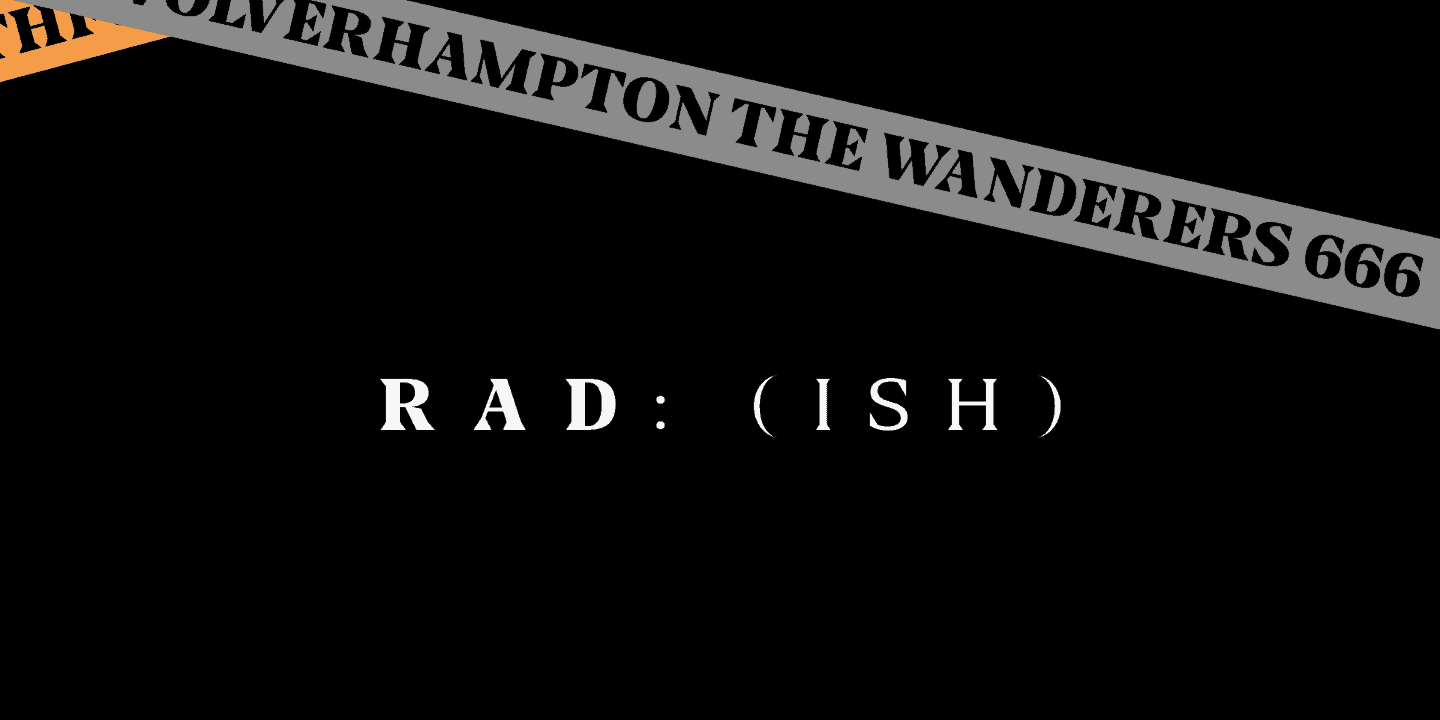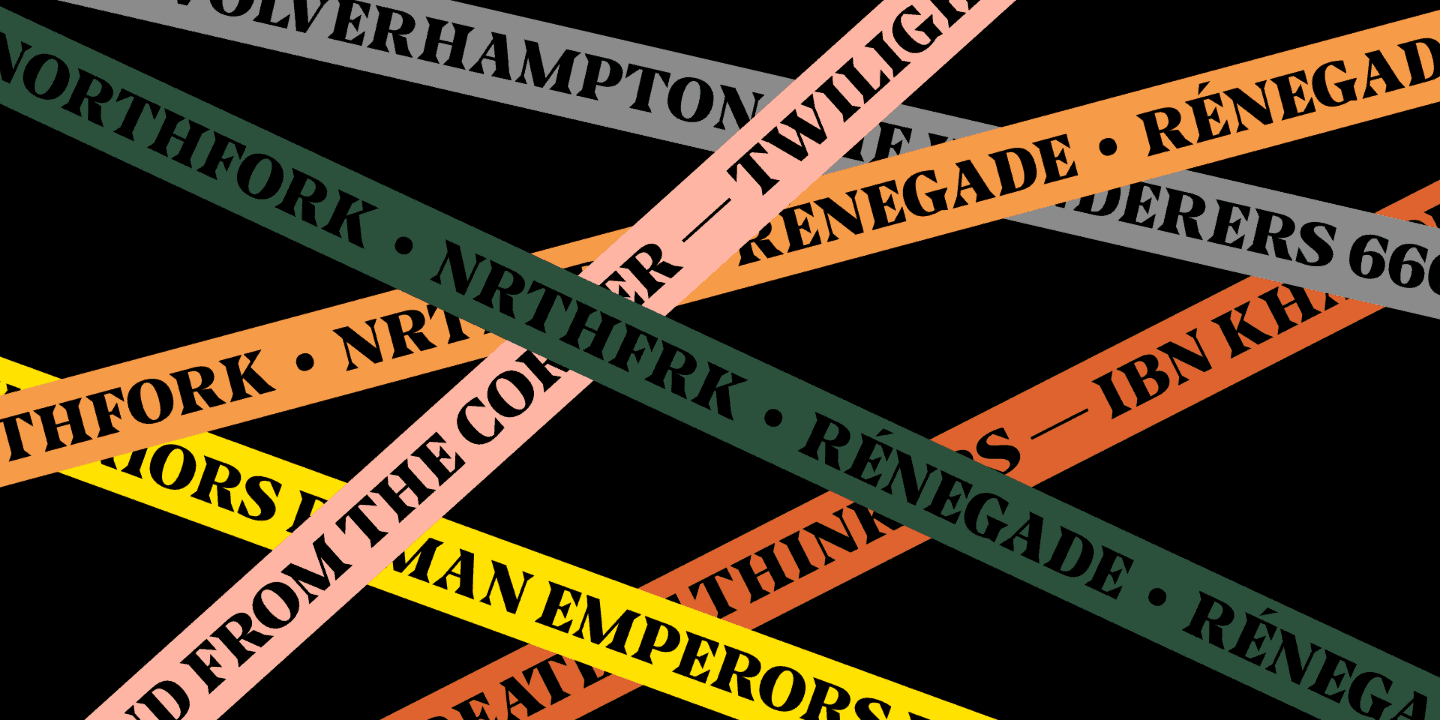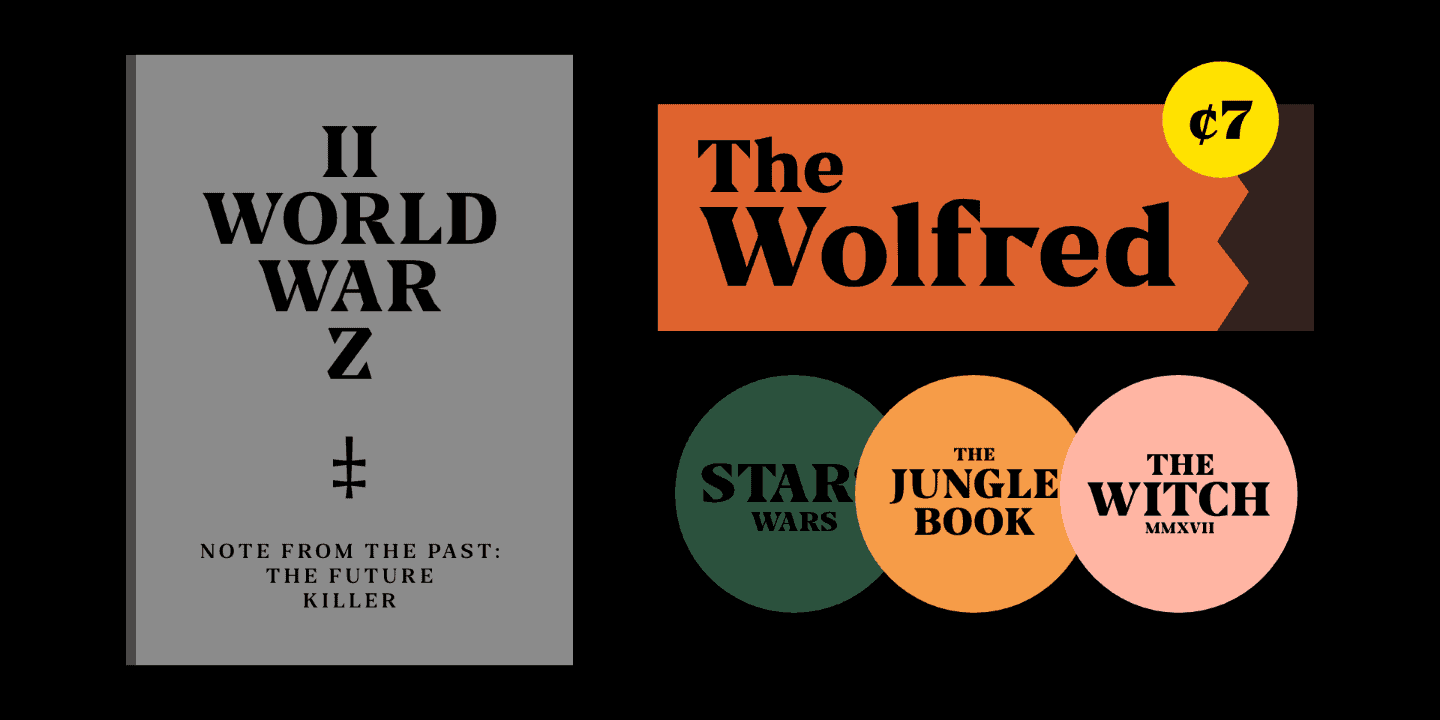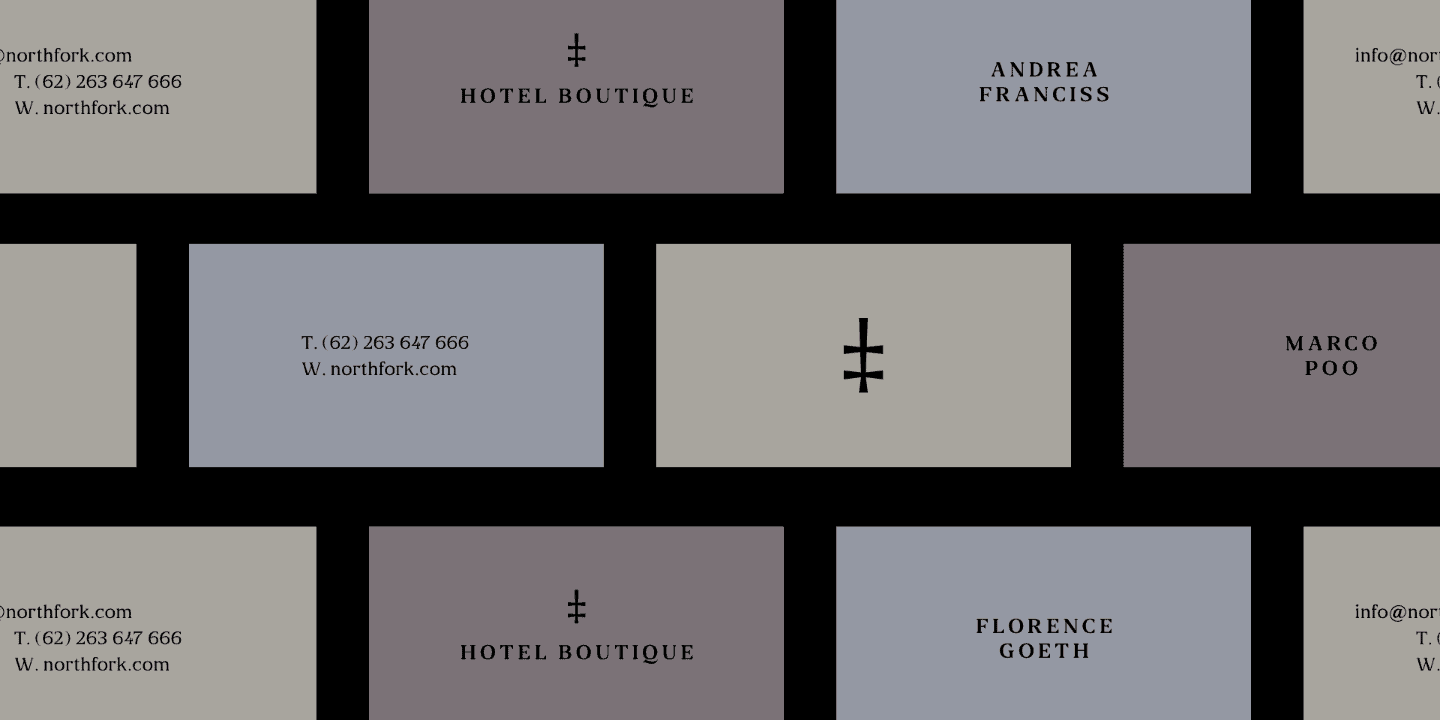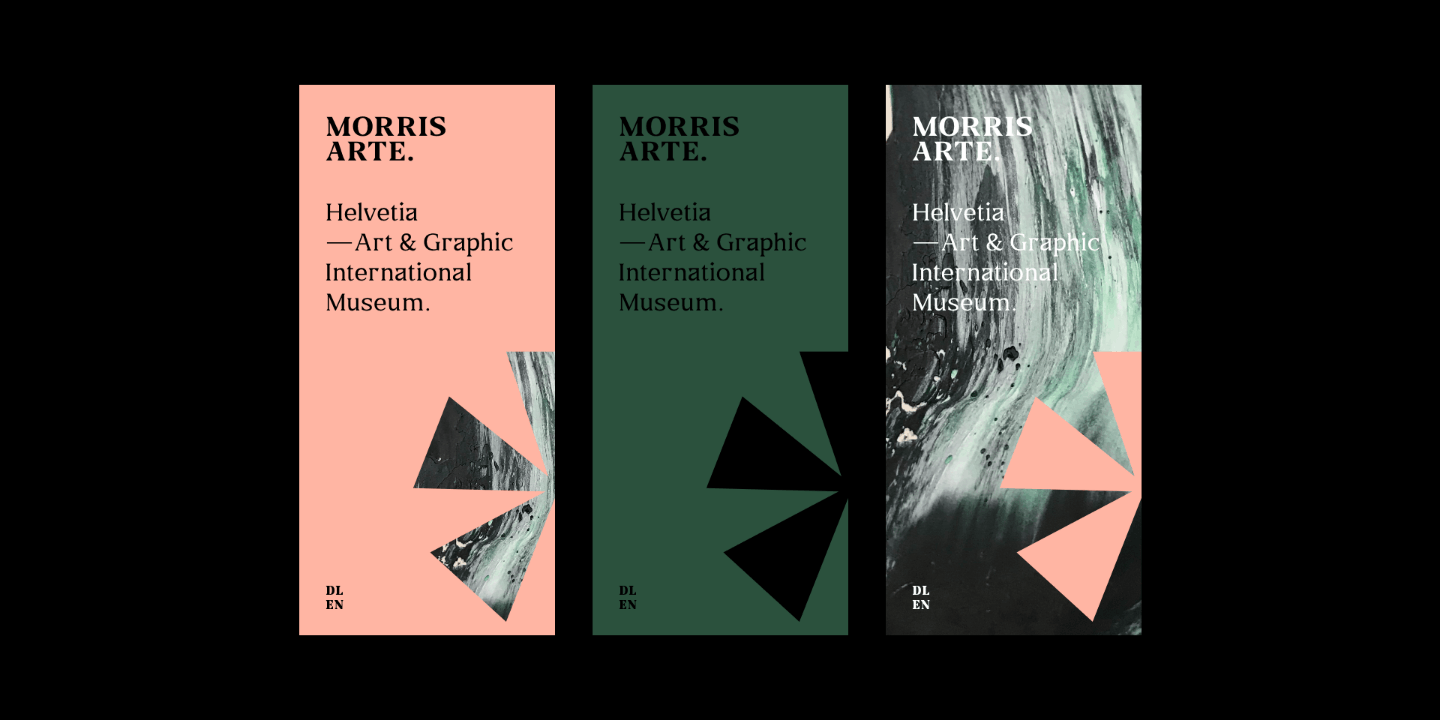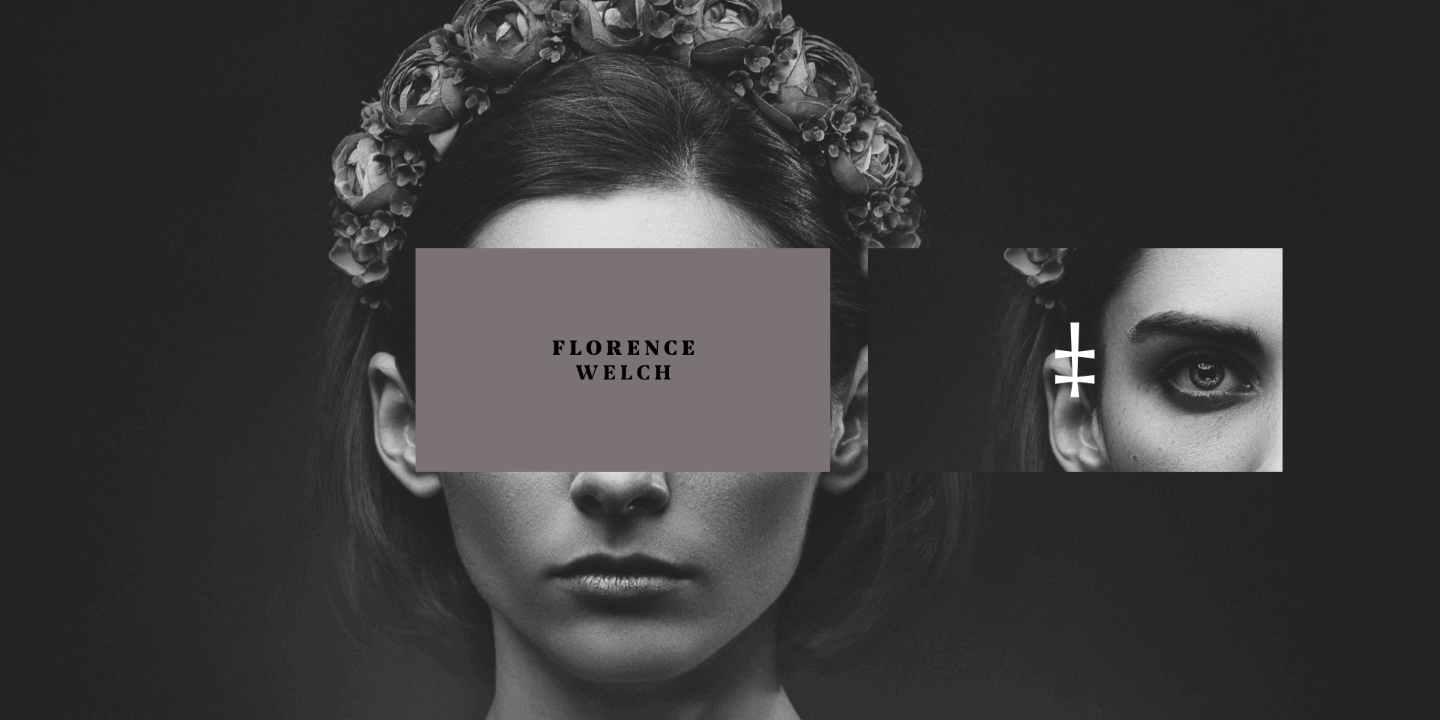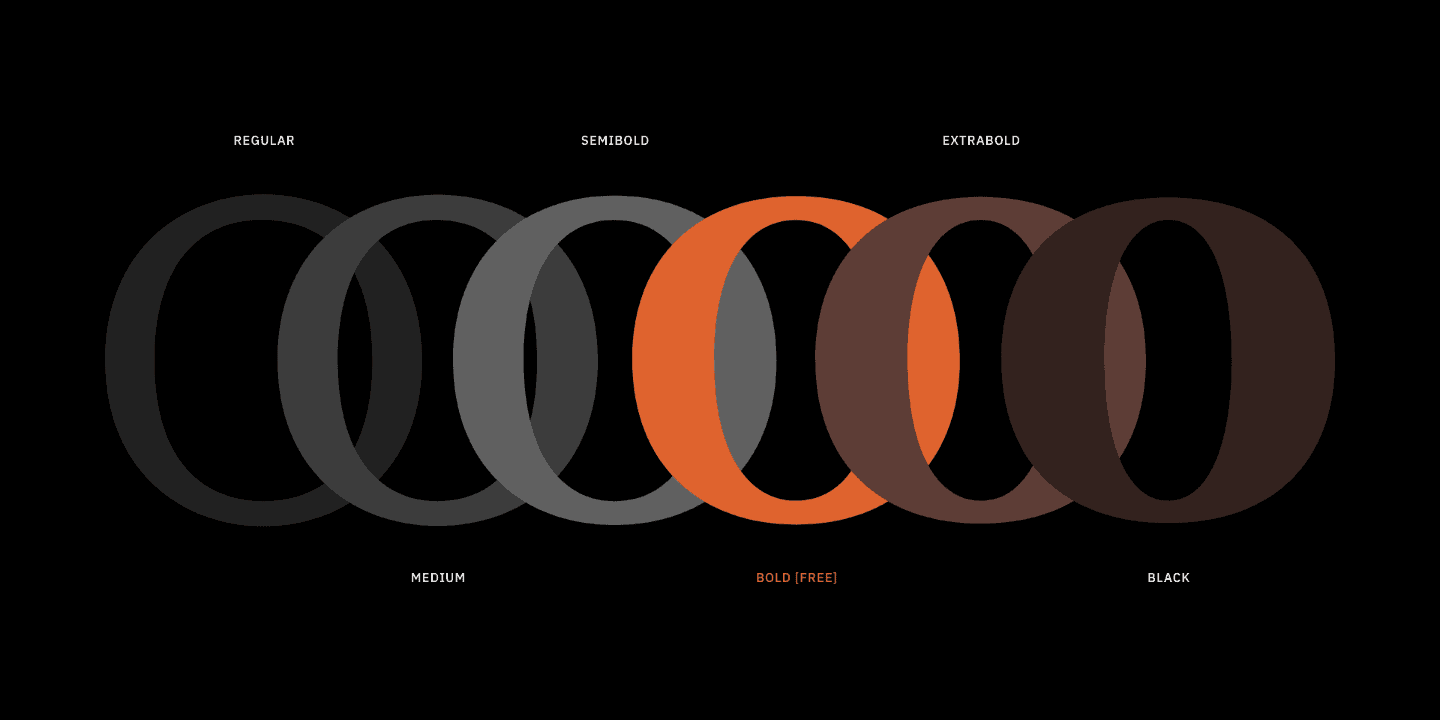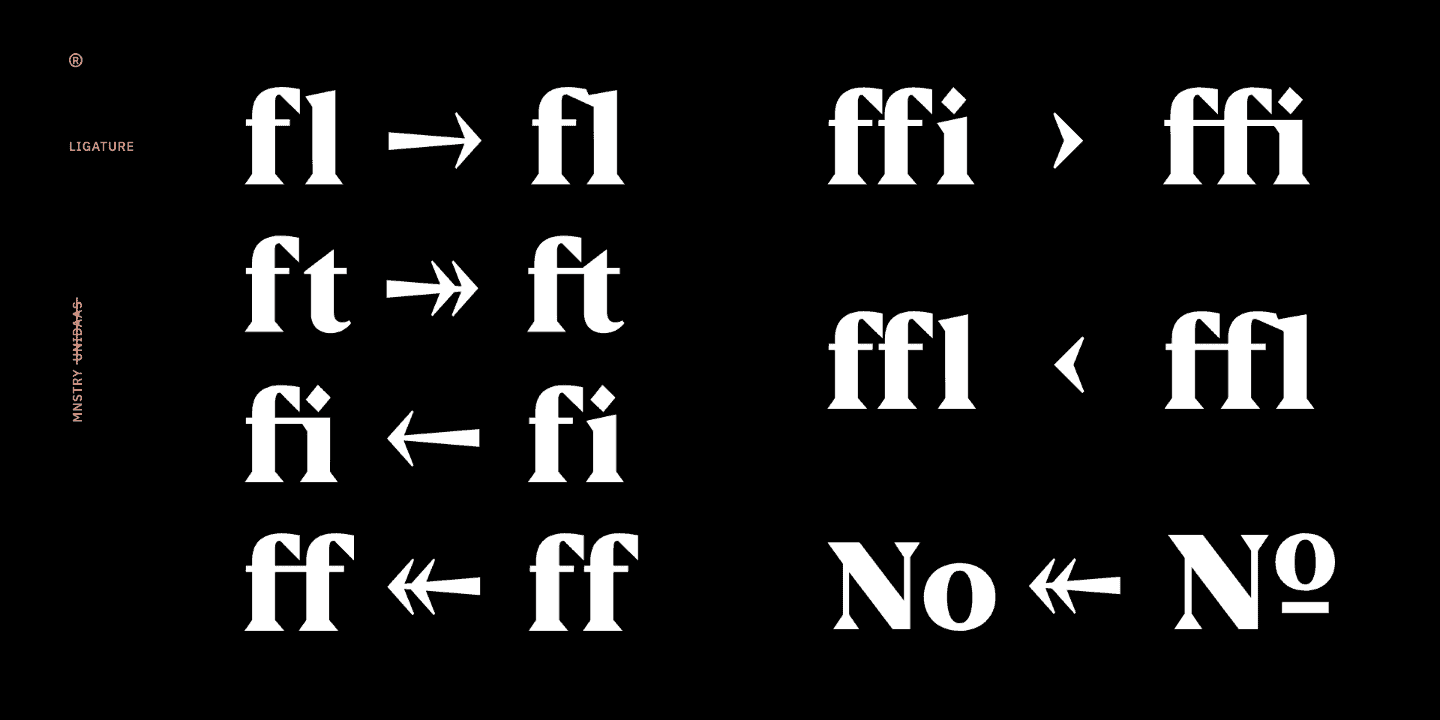
Blaak Font
About the Blaak Font
Blaak is an interpretation of a Modern Classic typeface with a beautiful and strong impression for editorial design.
The sharp serif combined with curves gives Blaak a fabulous, glamorous and bold look; at the same time doesn’t sacrifice its functionality.
This typeface family comes in six weights: Thin, Light, Regular, Bold, ExtraBold and Black
Each weight has an italic version, totaling in twelve styles.